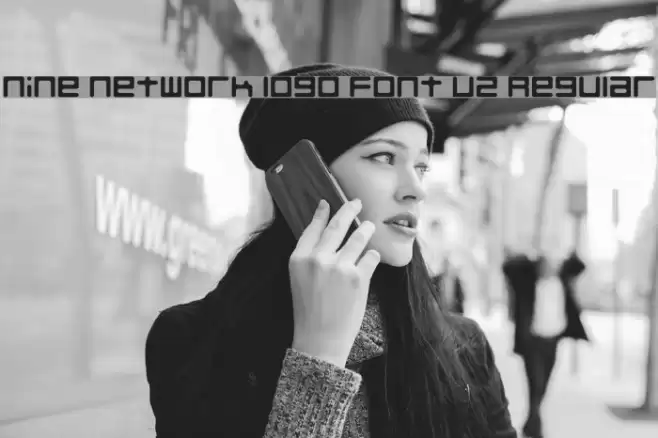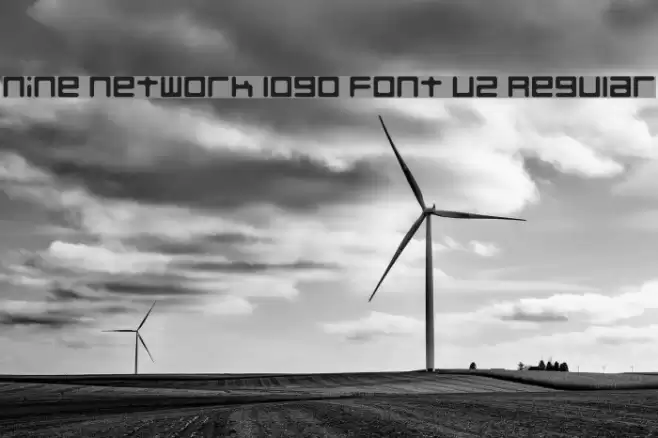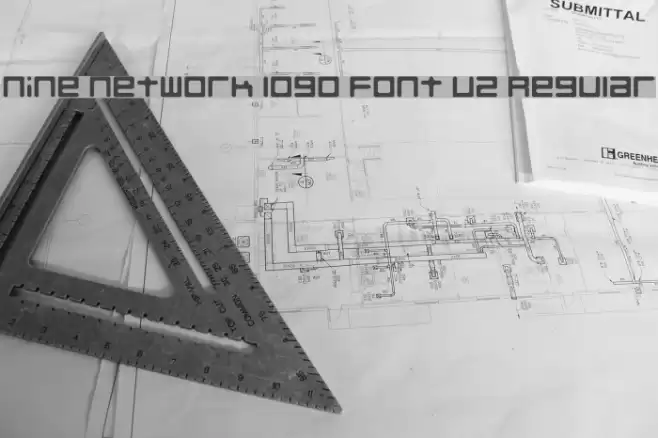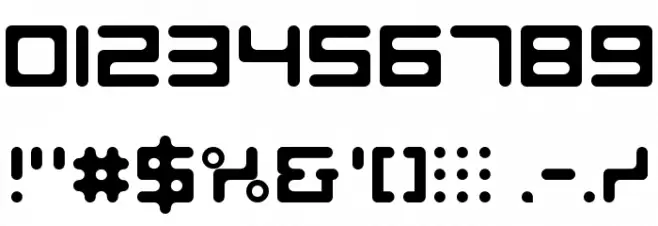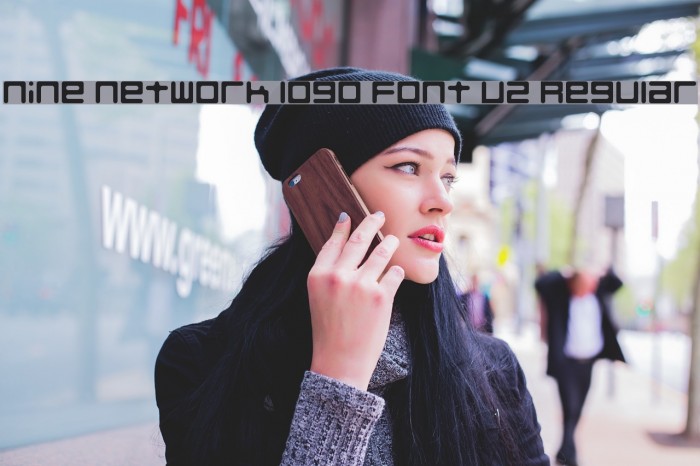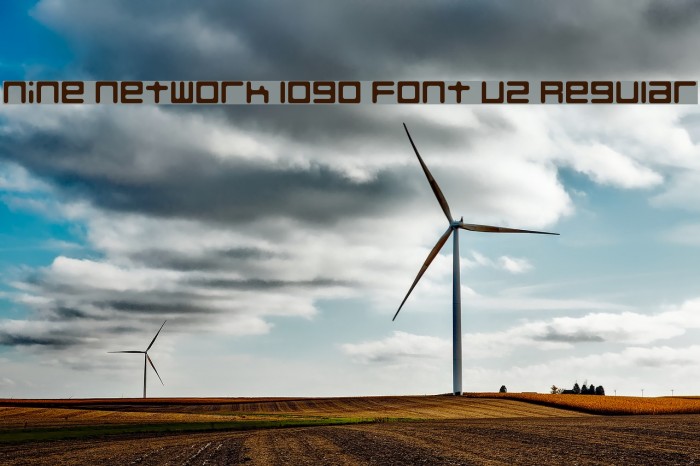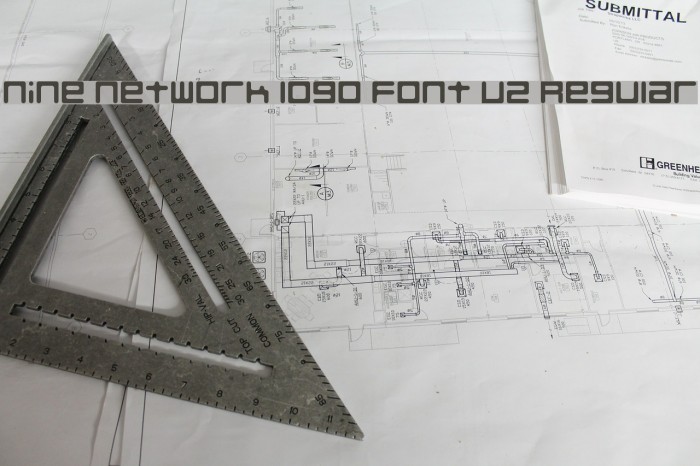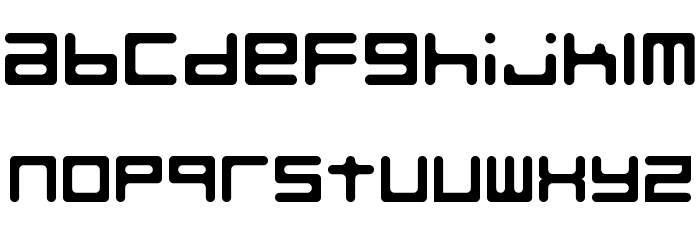
Nine Network logo font v2 Regular Font
Nine Network logo font v2 Regular Description
This font features a modern, geometric design with rounded edges and a uniform stroke width. The characters are bold and have a futuristic appearance, making them suitable for digital and tech-oriented projects. The uppercase and lowercase letters maintain a consistent style, with a slight distinction in size and shape. The numerals and special characters are designed to match the overall aesthetic, providing a cohesive look across all elements. The font's clean lines and minimalistic approach make it versatile for various applications, from branding to user interfaces.
A modern, geometric font with rounded edges and a futuristic style from Uncategorized fonts.
- Proposed Projects: Ideal for tech branding, digital interfaces, logos, and modern advertising.
- Use Case: Logos, Headlines, Digital interfaces